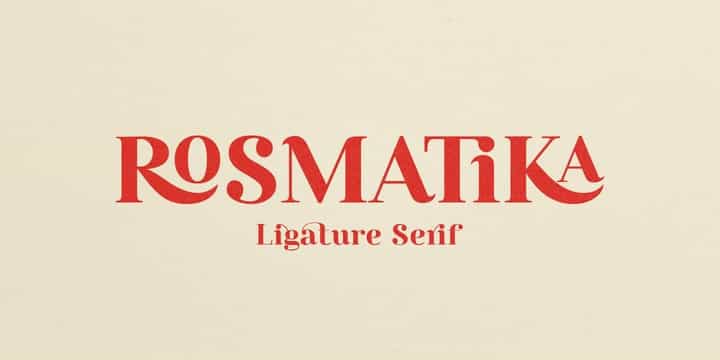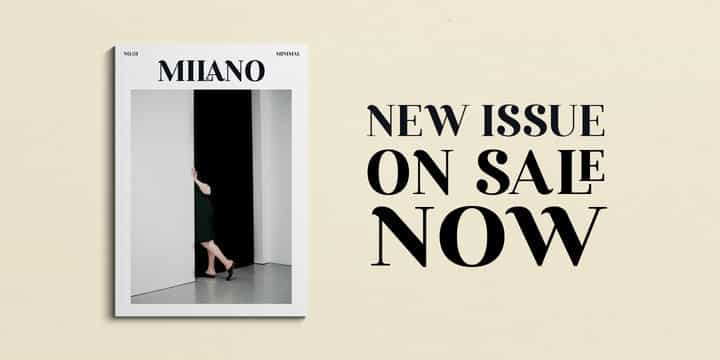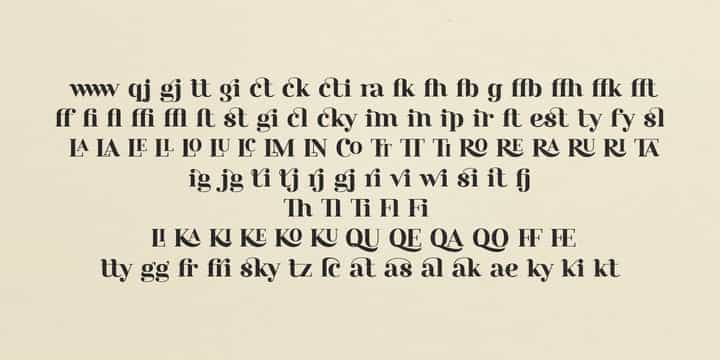
Introducing Rosmatika Font. It is new style Didone serif with many ligature. This font is a display font with high contrast so it is perfect for branding projects logos wedding designs, social media posts, product packaging, labels, watermarks, invitations, advertisements, and any project that requires the use of bold fonts which are easy to read.